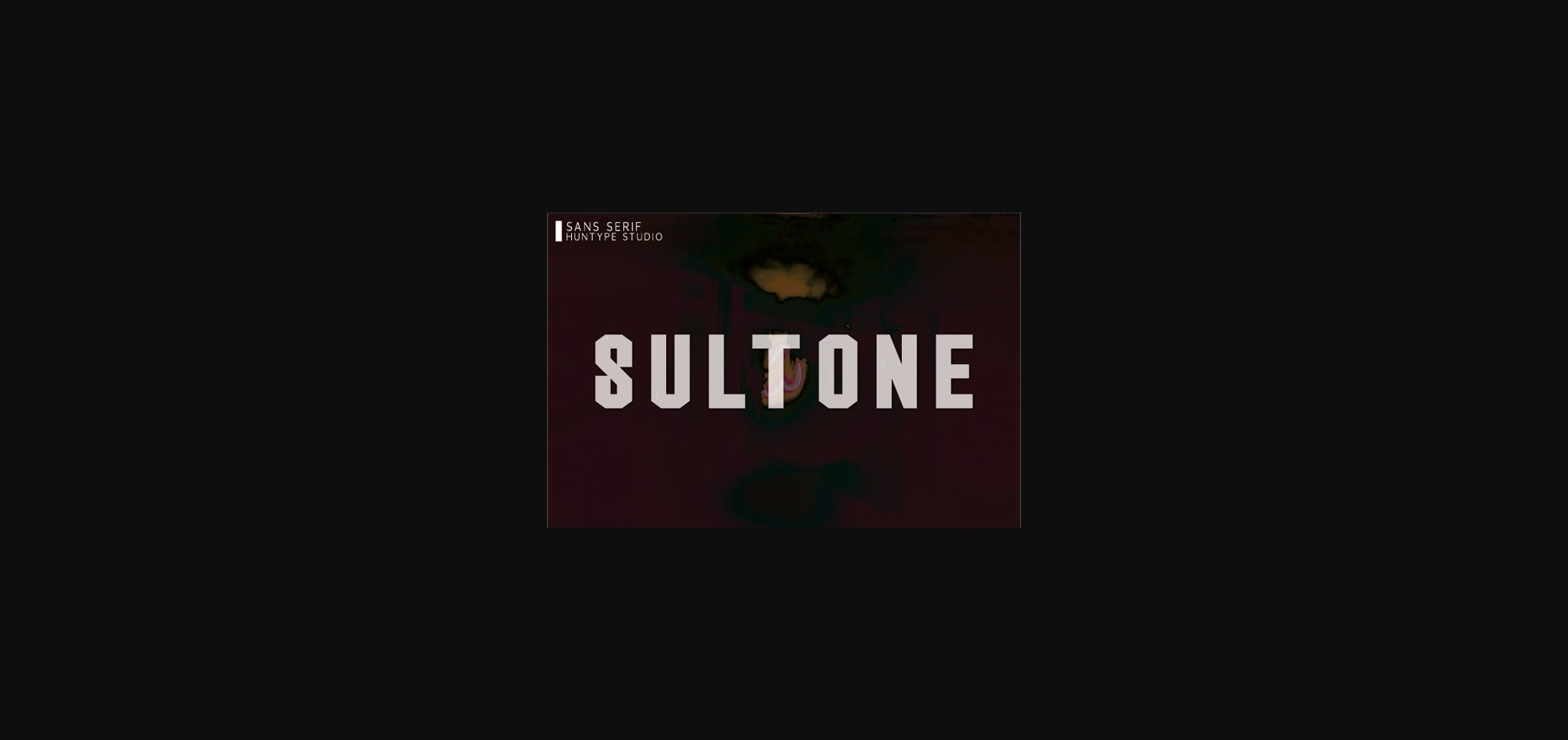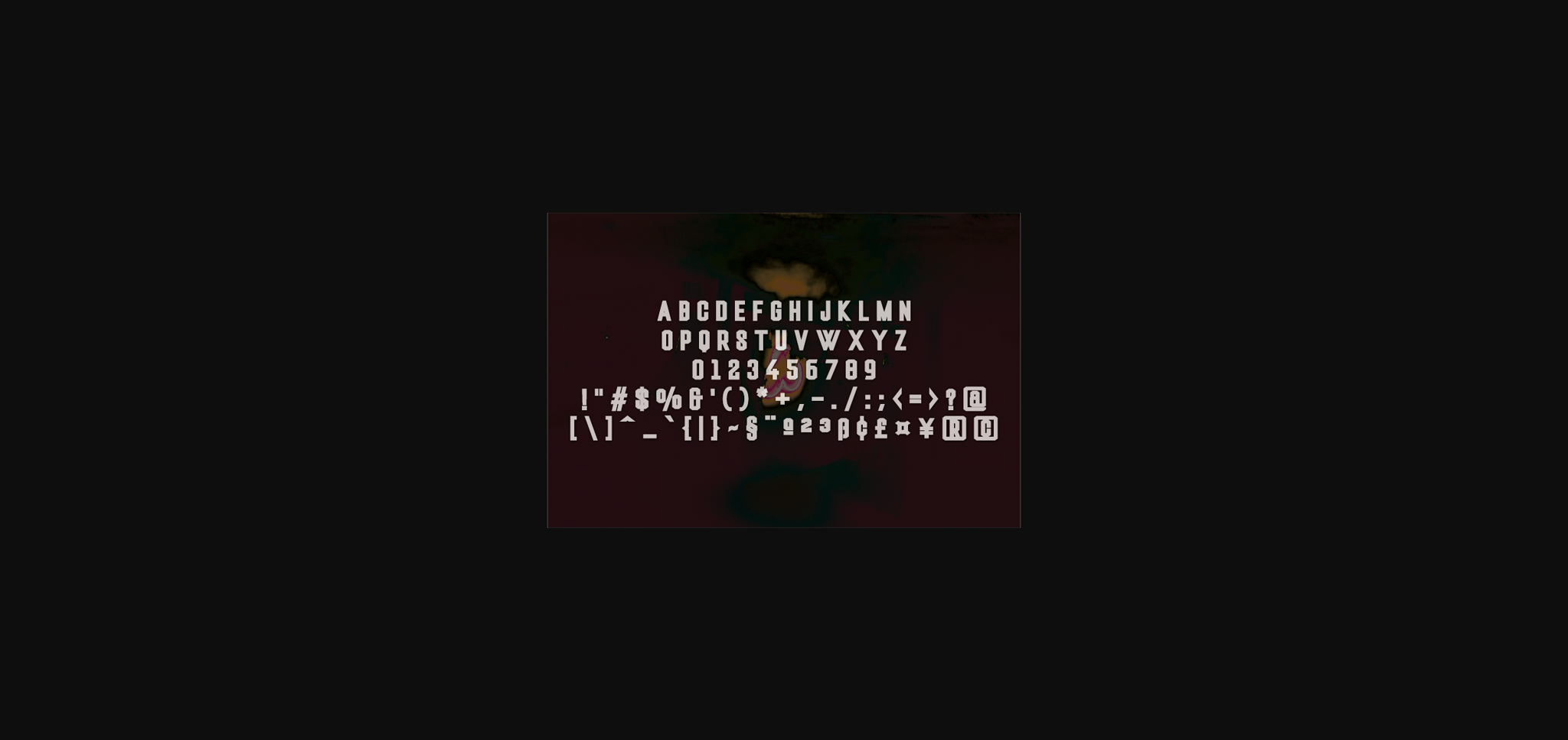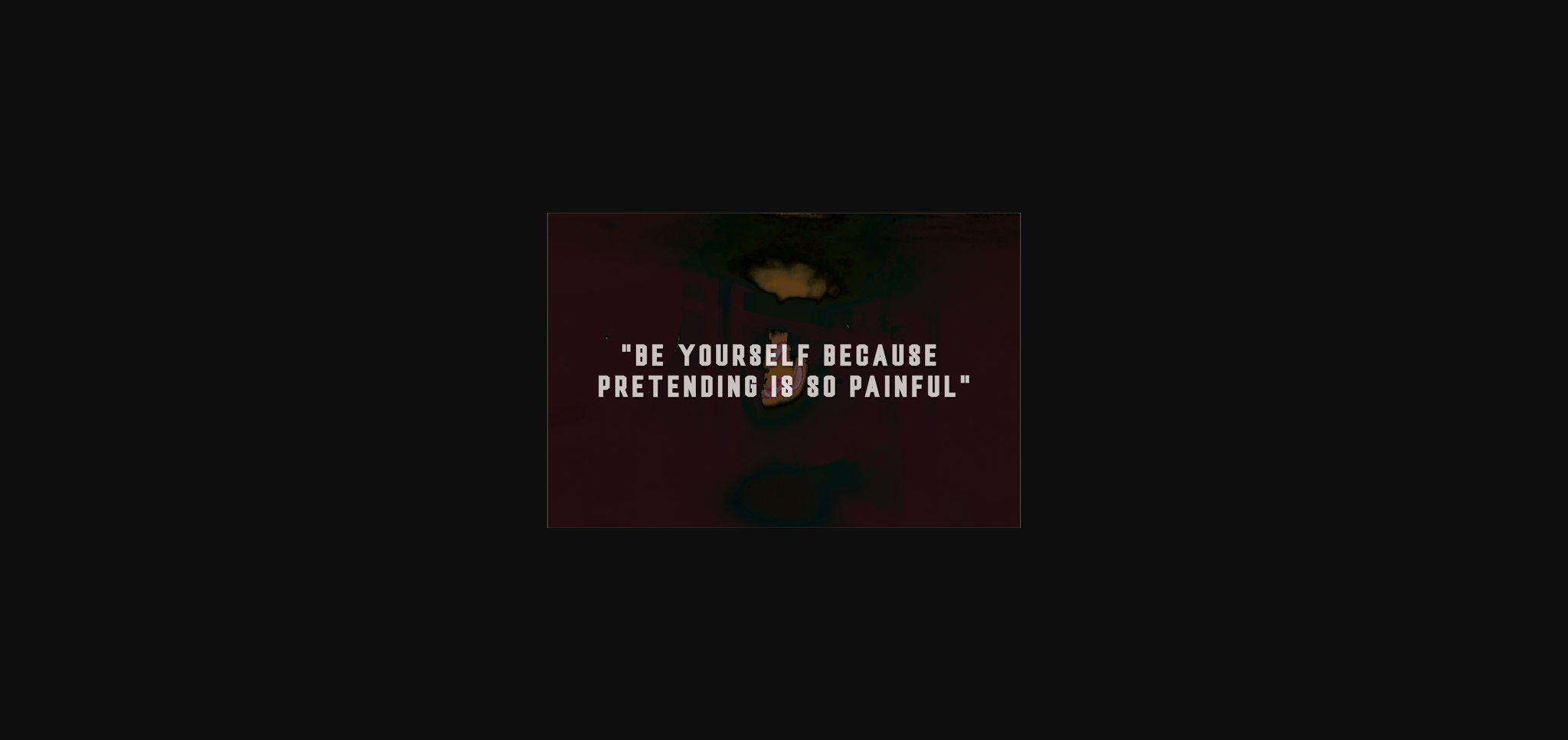
Sultone Font
About Sultone Font
Sultone is a neat and thick lettered sans serif font. With modern and clean lines, this font works beautifully for logos, branding, and web headings.